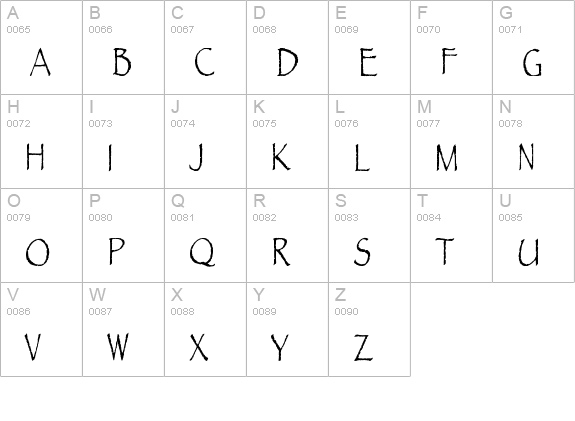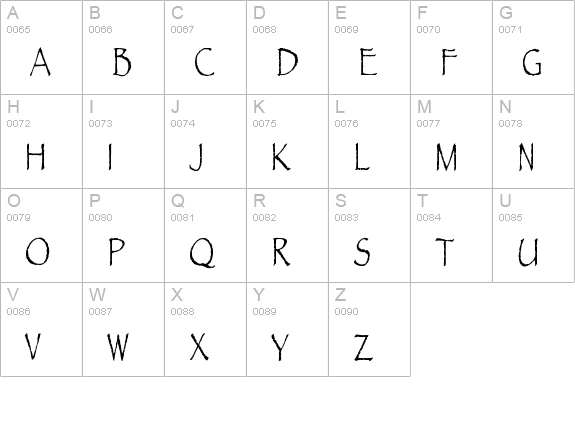
Papyrus Condensed is a distinctive, condensed-width variant in the Papyrus typeface family \xE2\x80\x94 well suited to design and typography projects.
Papyrus Condensed font exudes a sense of elegance and sophistication with its unique design. The condensed version of the beloved Papyrus font offers a sleek and modern twist, perfect for adding a touch of flair to any design project. Its slender strokes and intricate details make it a standout choice for headings, titles, and other display purposes.